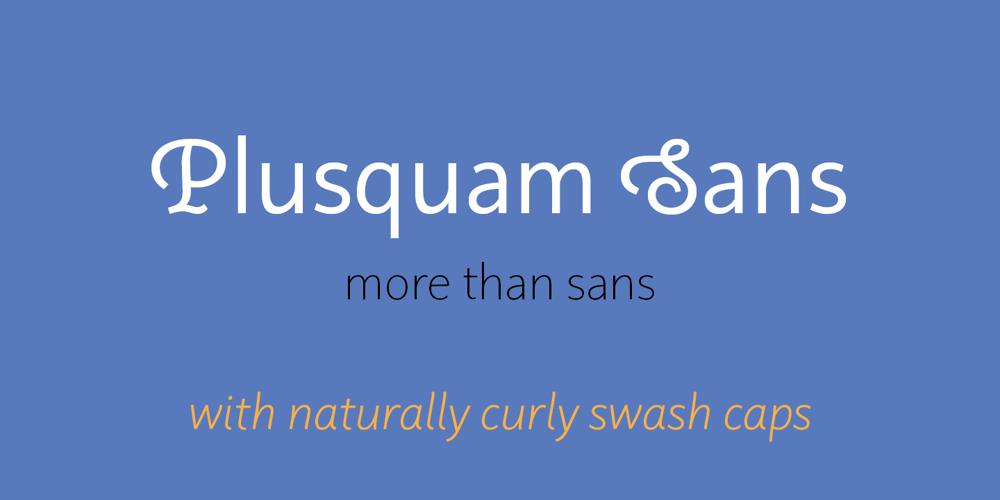
Plusquam Sans Font Family was designed by Olivera Stojadinovic and published by Typolis. Plusquam Sans contains 16 styles and family package options. Plusquam Sans is a humanist sans serif family in eight weights, roman and italic. It’s neutral character and legibility in smaller sizes recommend it as a text face, and wide range of weights and swash capitals make it usable for various designer purposes. While roman fonts are simple, although in humanist spirit, italics are more vivid. Typographic variants are supported through OpenType features. Several kind of numerals are offered: lining and Oldstyle, tabular and proportional, superior and inferior, fractions. Small caps and math symbols are provided. There is a range of standard and discretionary ligatures. Alternates sorted in three stylistic sets are created to soften the overall appearance. Most distinguished feature is a set of swash capitals balanced to match sans serif characters. Plusquam Sans comprises multilingual Latin and monotonic Greek characters.